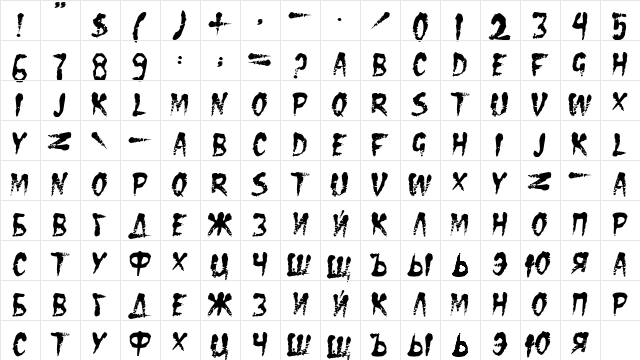
DS EraserC Regular
Design Context for DS EraserC Typeface
DS EraserC is a composed and adaptable typeface that performs quietly and consistently across a wide range of design contexts.